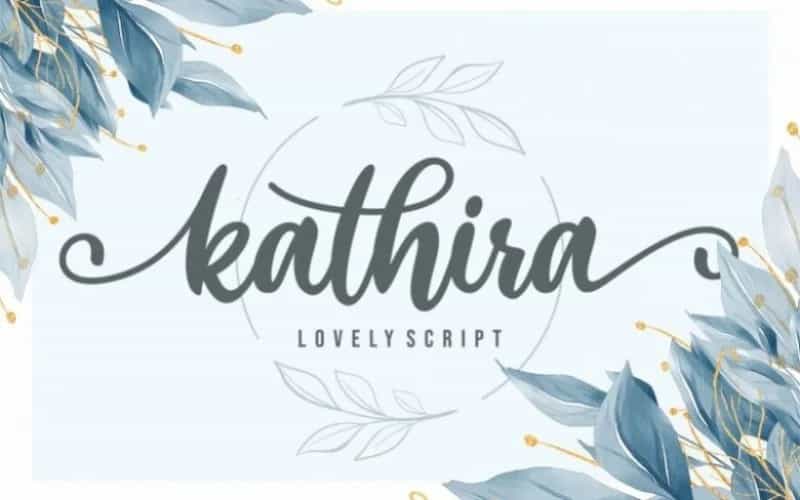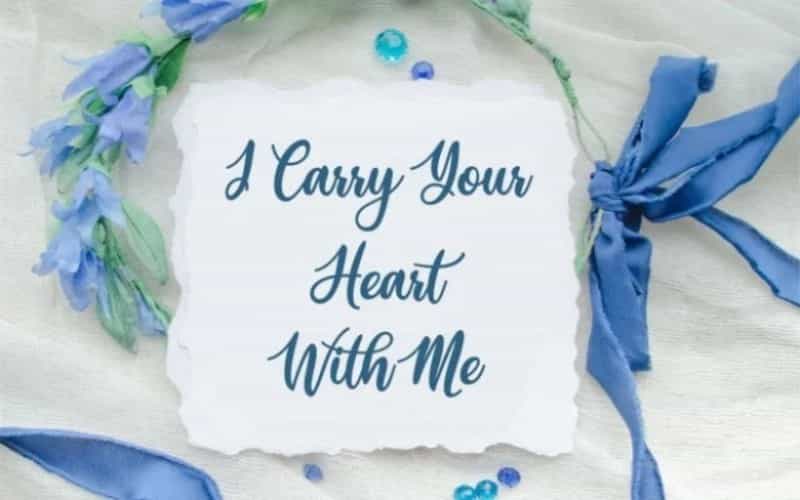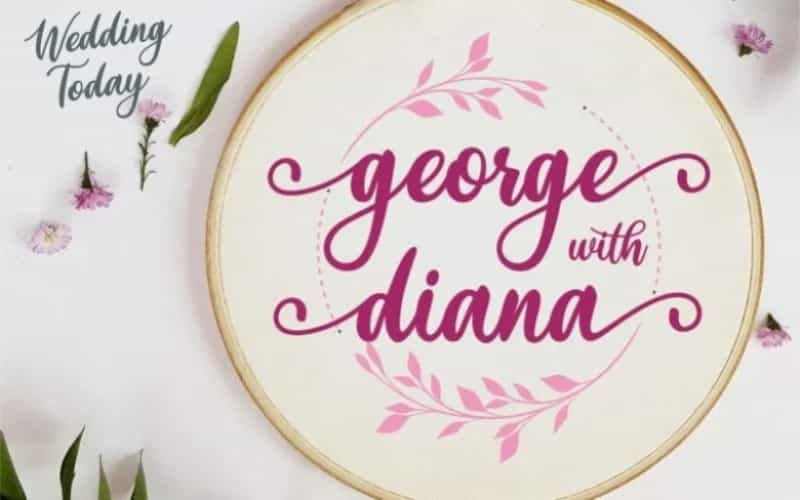
The font used in the script of Kathira is beautiful calligraphy. The font is contemporary and classy in design and can be applied in logo, branding, invitation, photography, label, wedding cards, and any other unique design that calls for a touch of class.